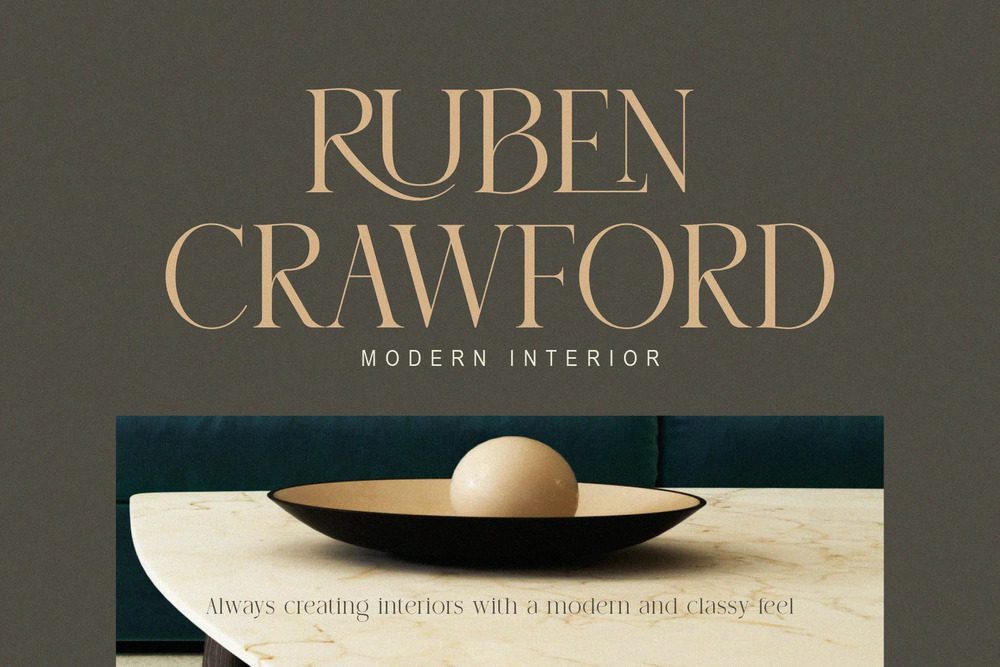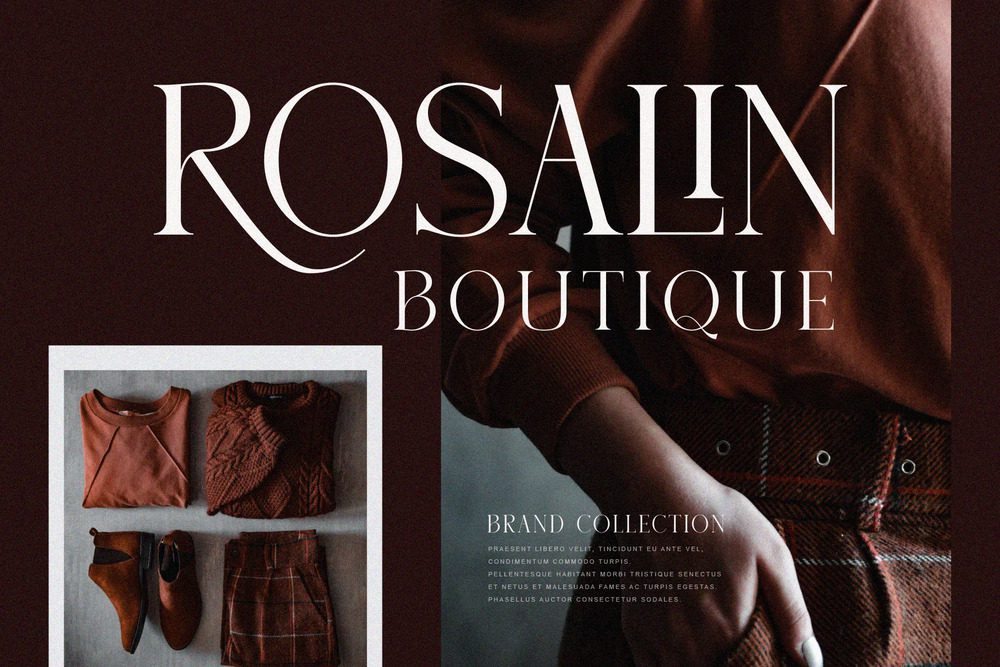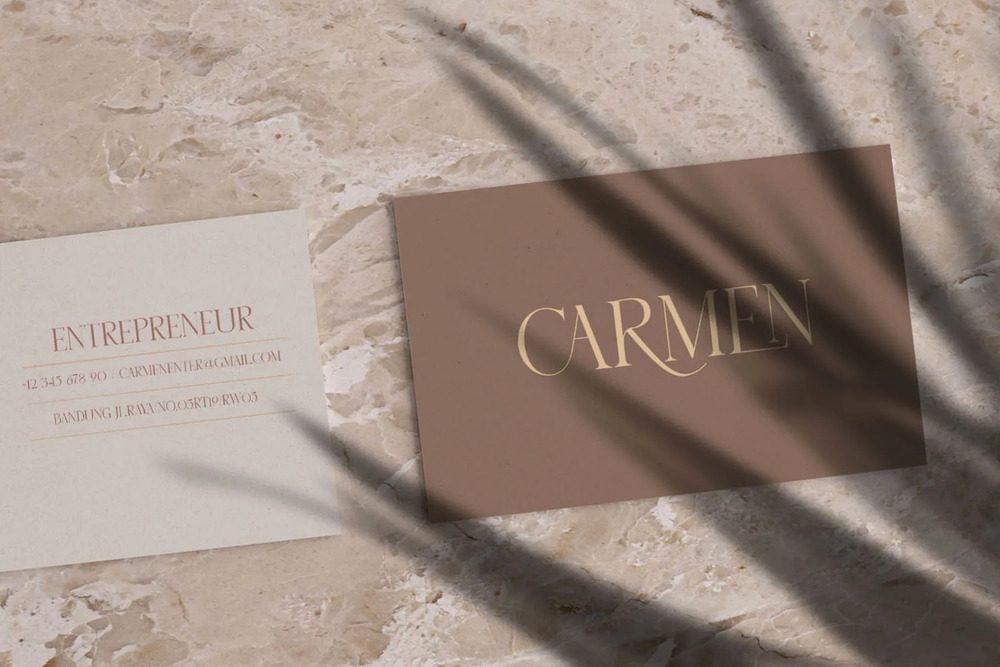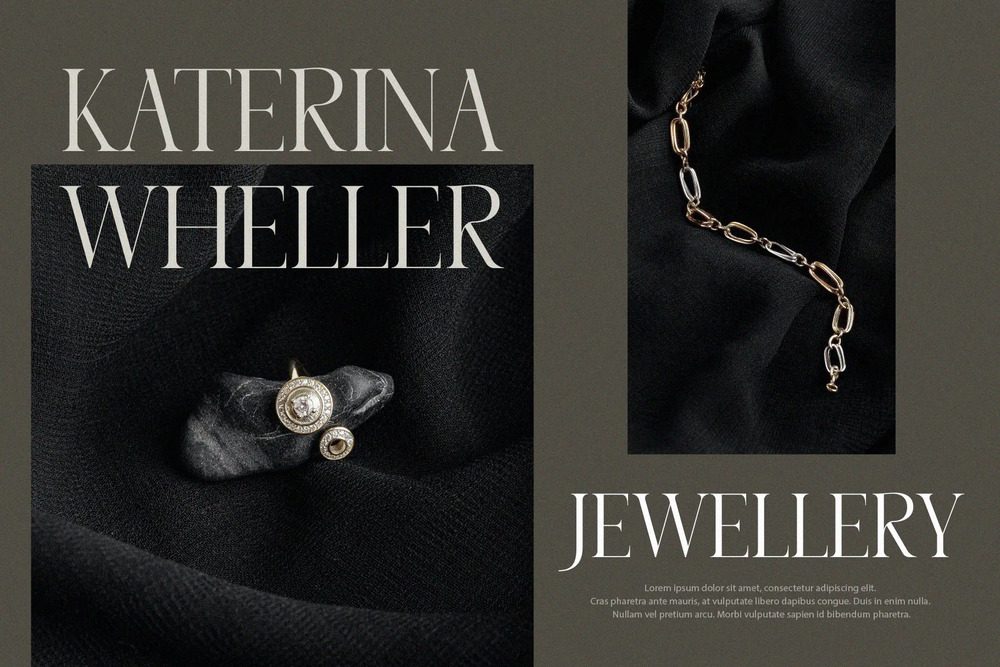
Bloverly Font
BLOVERLY, a very elegant and classy serif font with beautiful characters and curves and alternate glyphs. This typeface includes multilingual support, and would be perfect for displaying titles in your projects BLOVERLY is made primarily for headlines, titles and other short text and is perfect for advertising, vintage mood boards, branding, logotypes, packaging, titles, editorial design, modern logos, websites, social media quotes, wedding branding, modern and unique design.